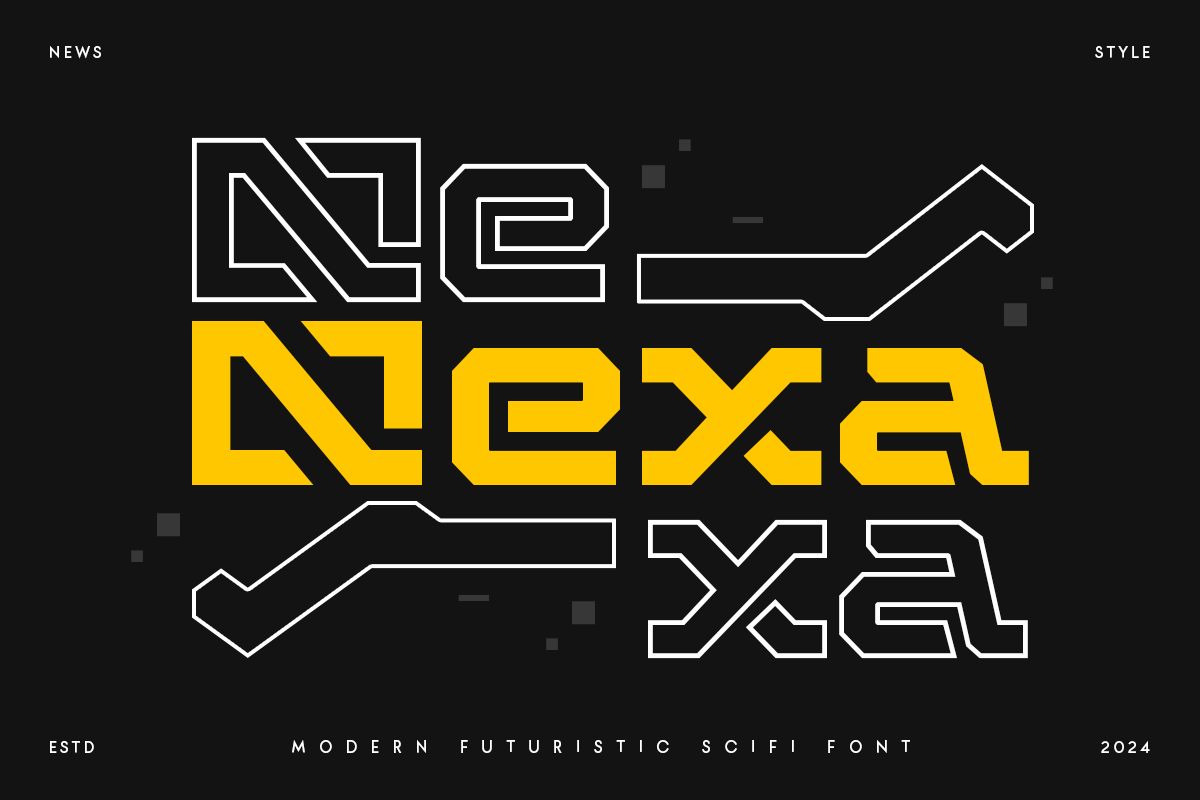
Nexa - Modern Futuristic Scifi Font
Transform your designs with Nexa - the ultimate futuristic font that brings cyberpunk and sci-fi aesthetics to life. Nexa perfectly blends cutting-edge technology themes with sleek modern design, elevating your projects to a new level of innovation and visual impact. This versatile sans serif typeface delivers the essence of futuristic styling while maintaining exceptional functionality across all applications. Nexa Font Features: Futuristic Style: Sleek and modern design, ideal for tech and sci...